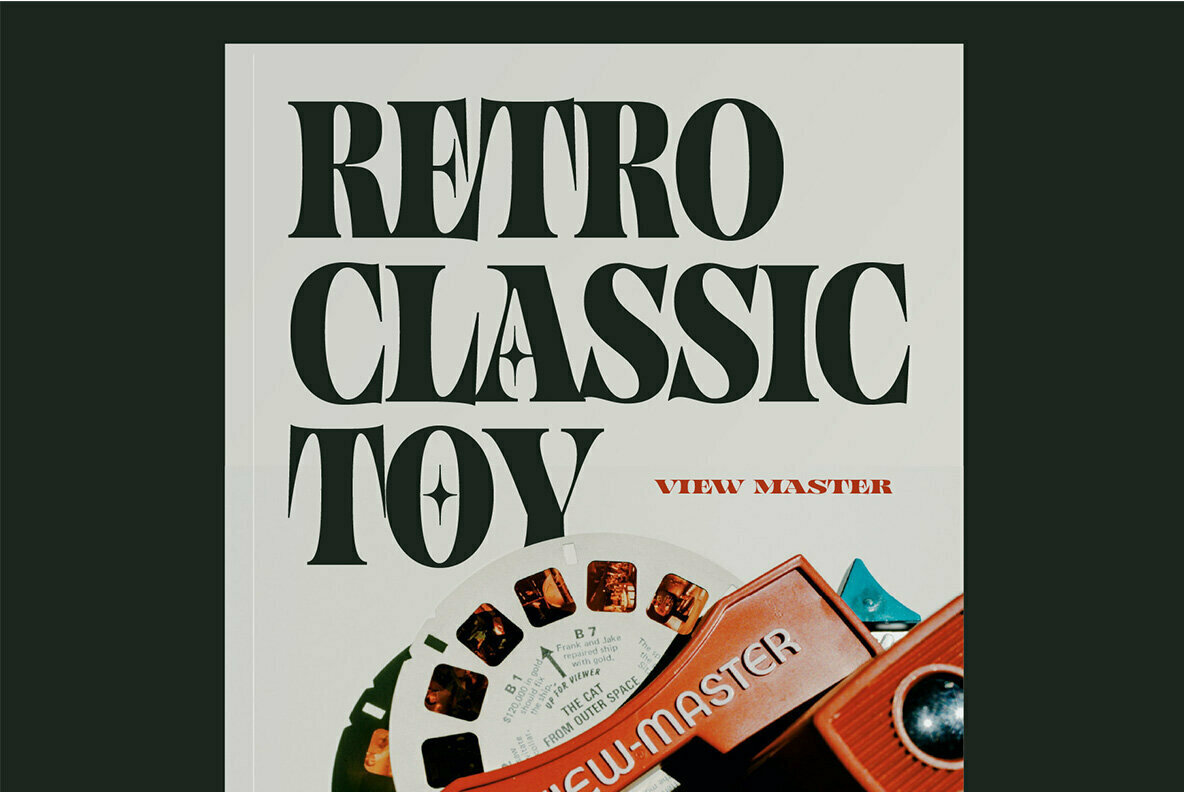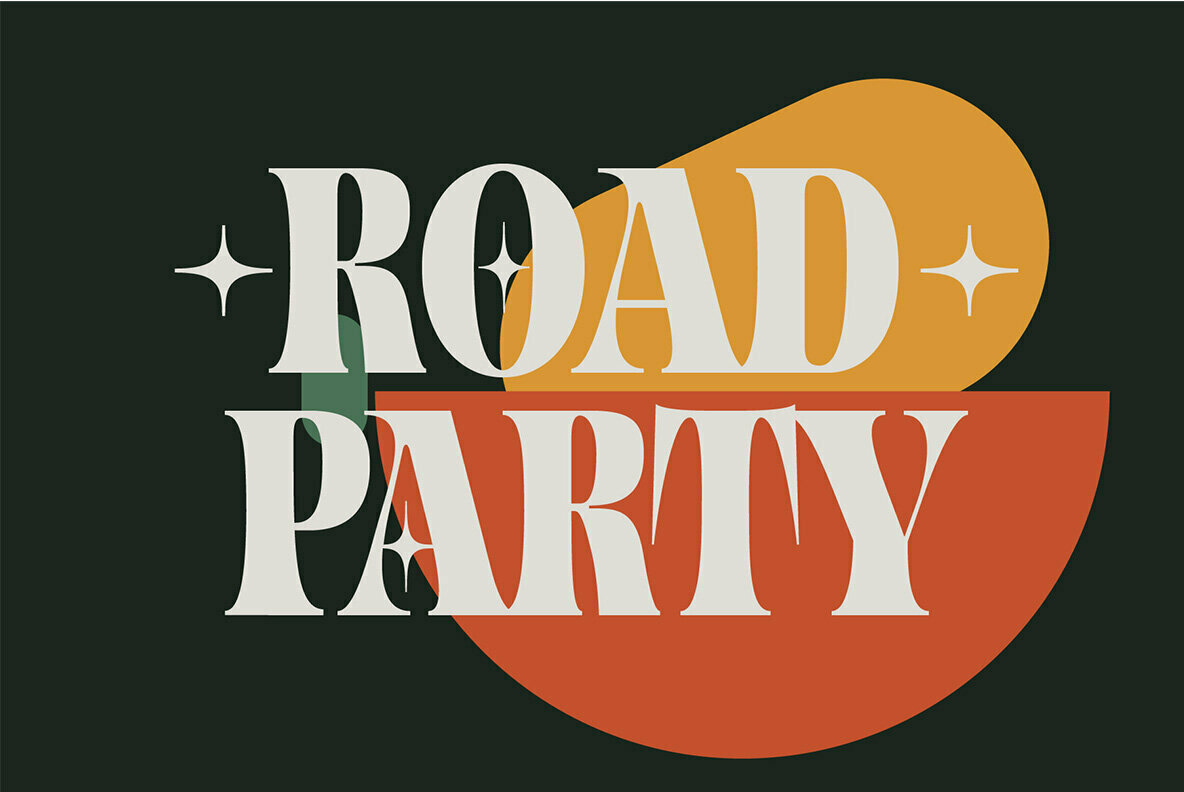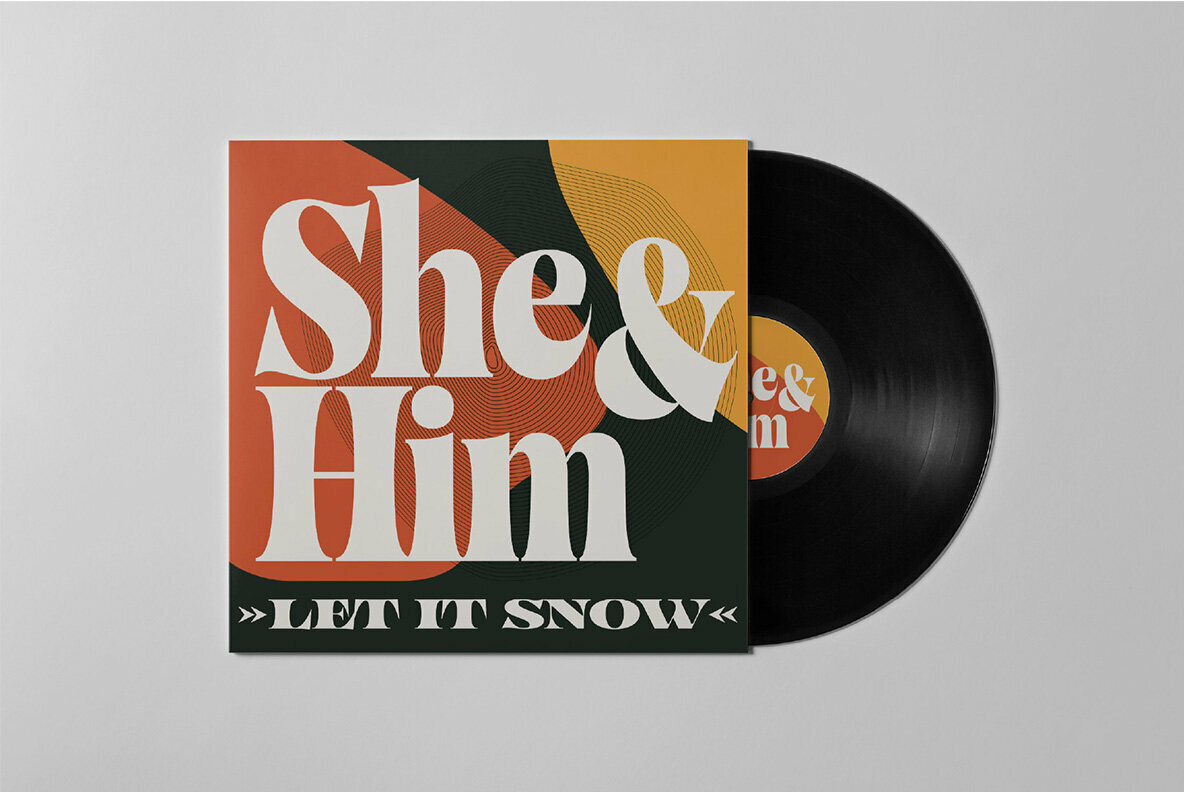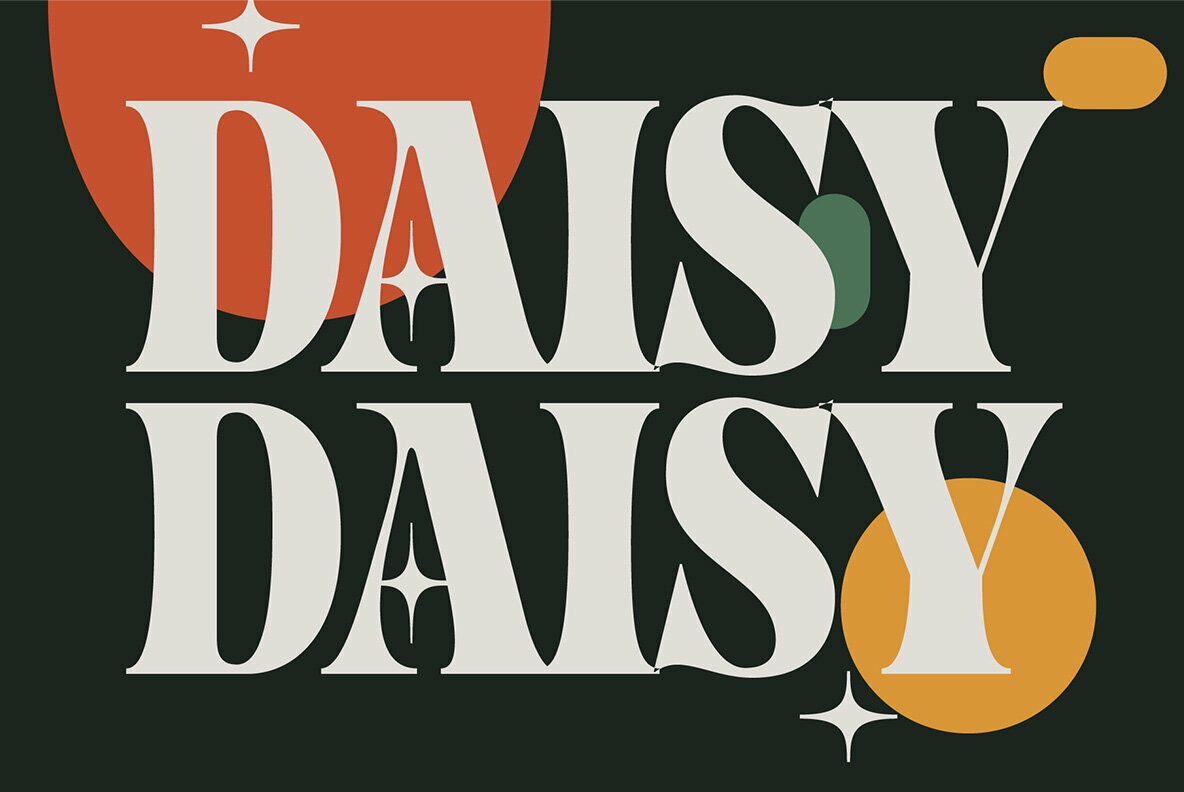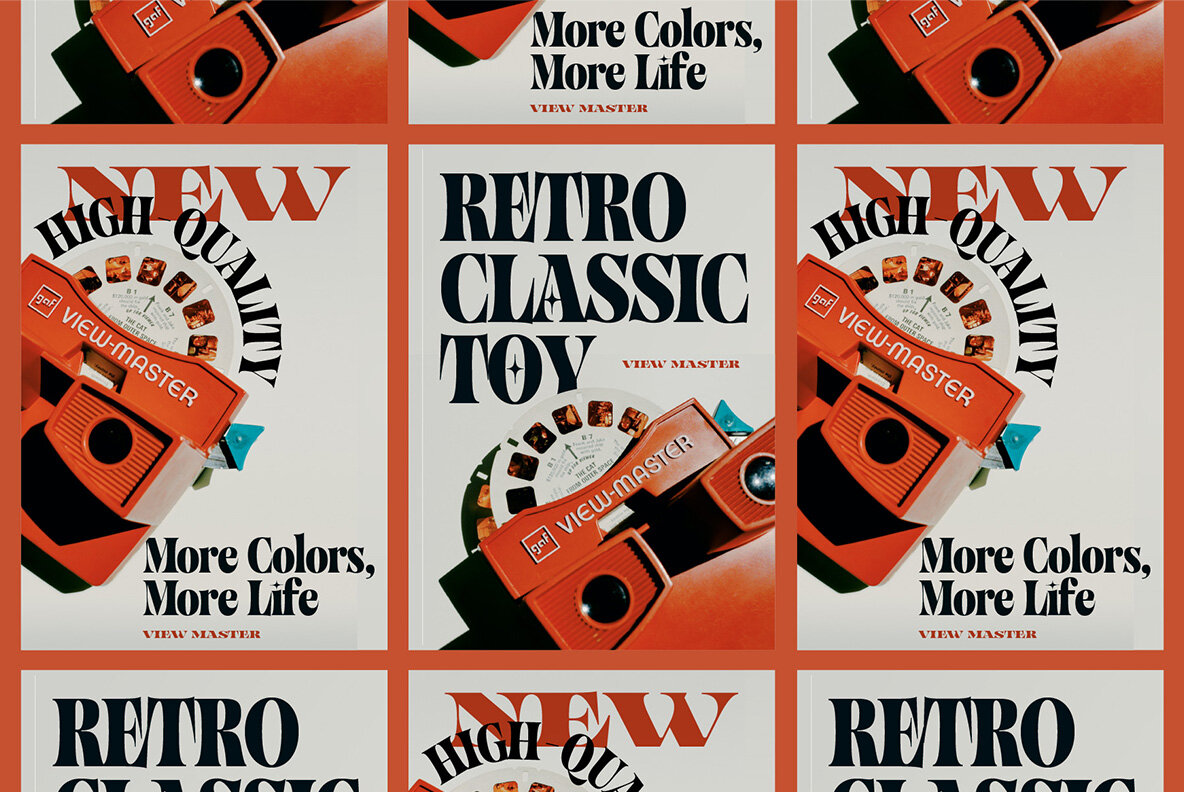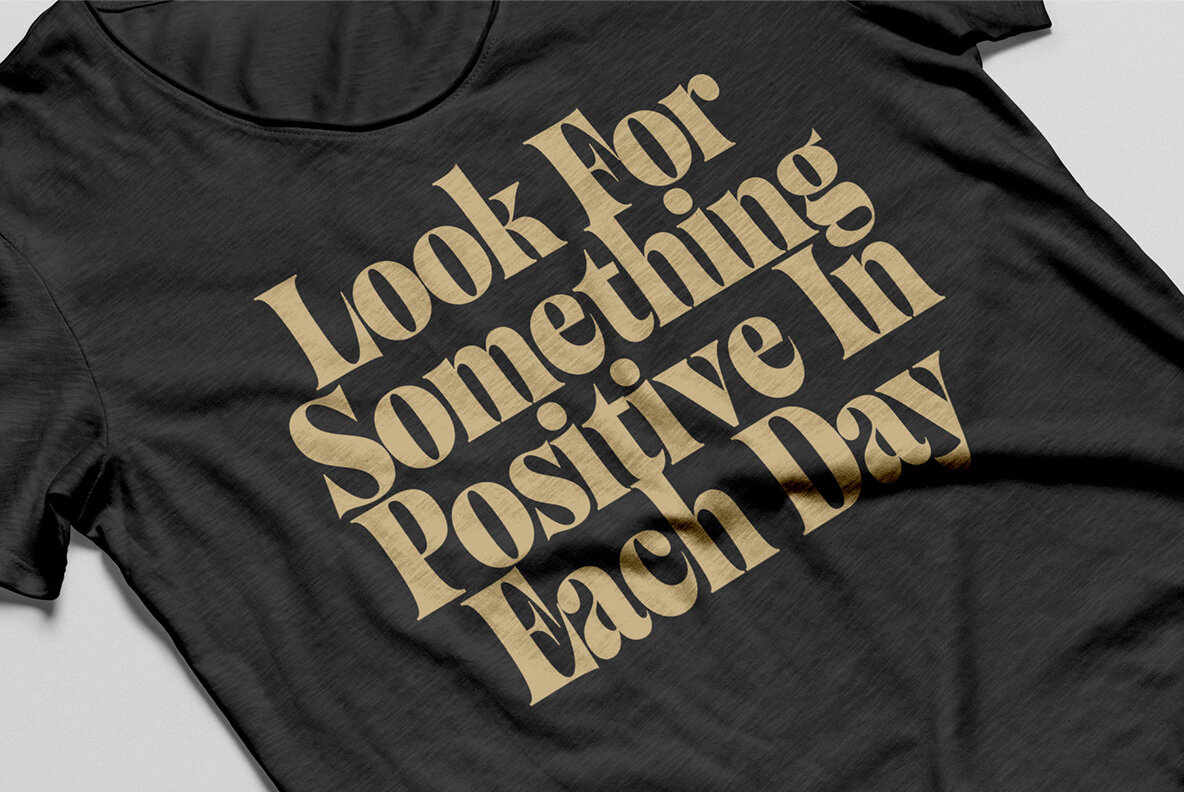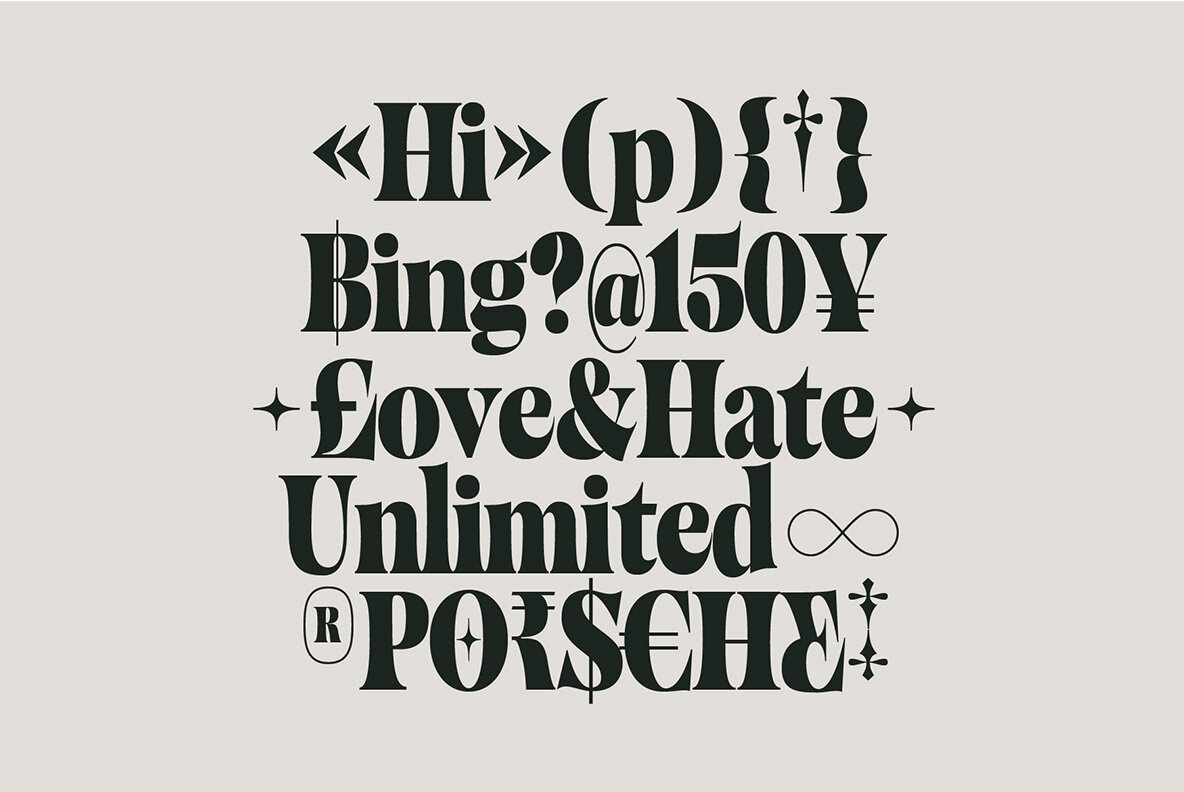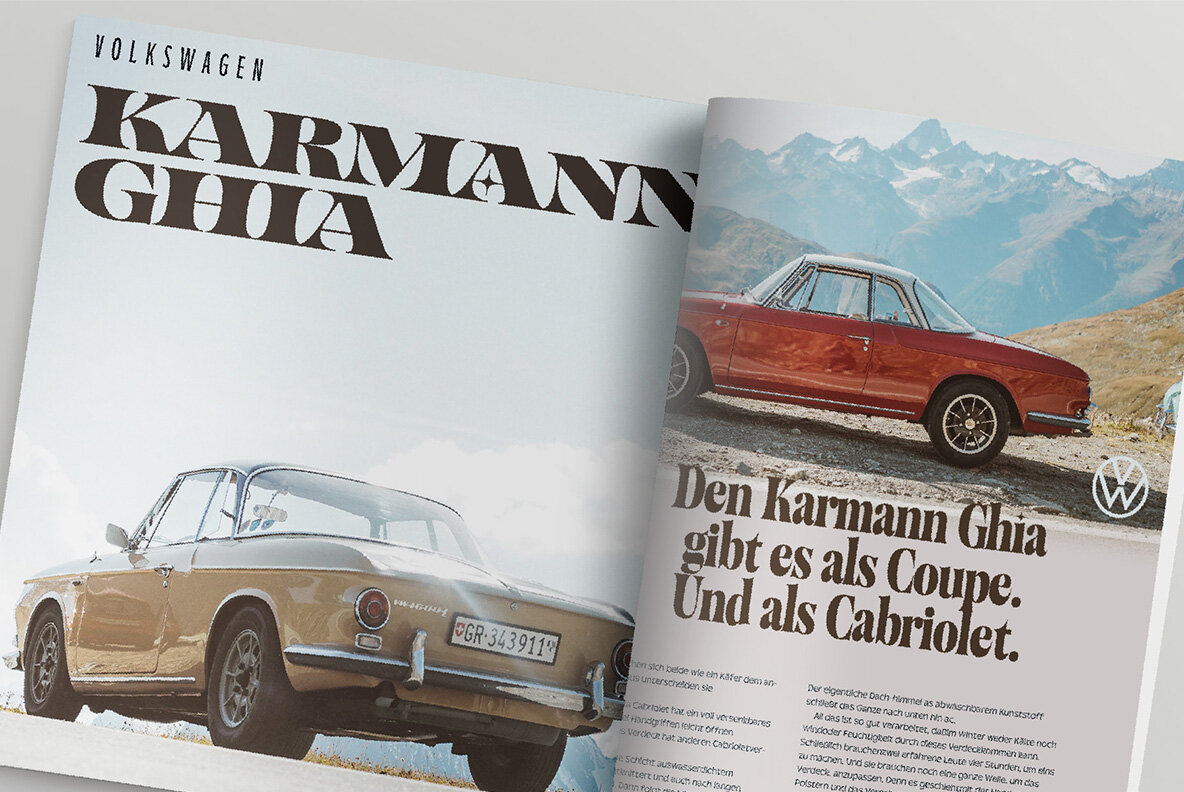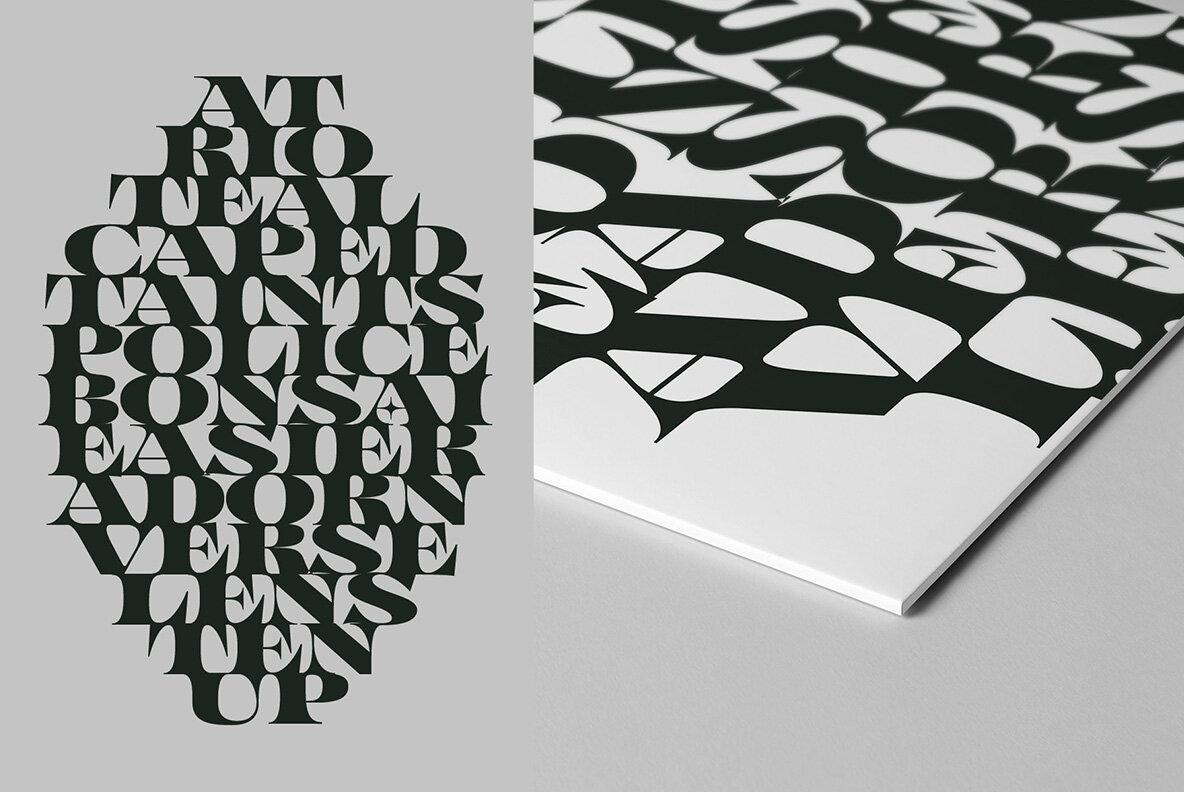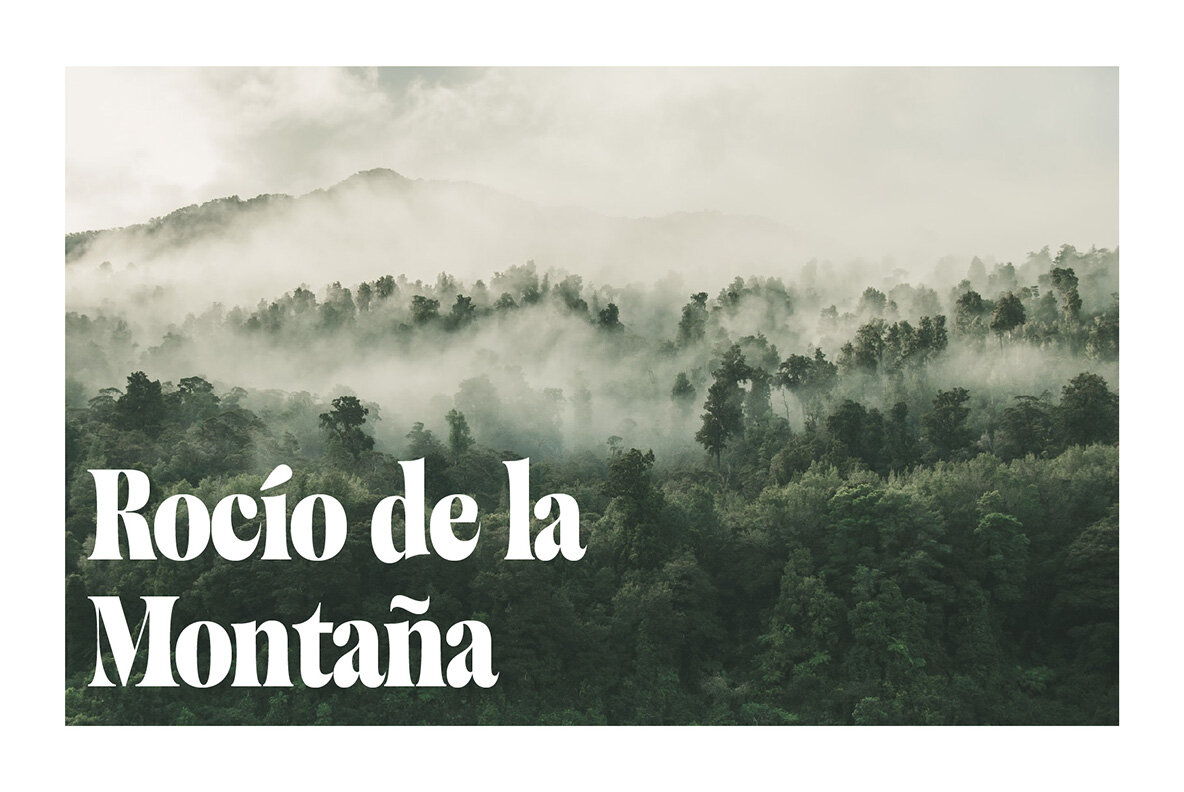
This is a font that can be used for anything from headlines and logos, to posters or branding. It's simple yet elegant design takes up little space on your screen while still being very readable, which makes it perfect!